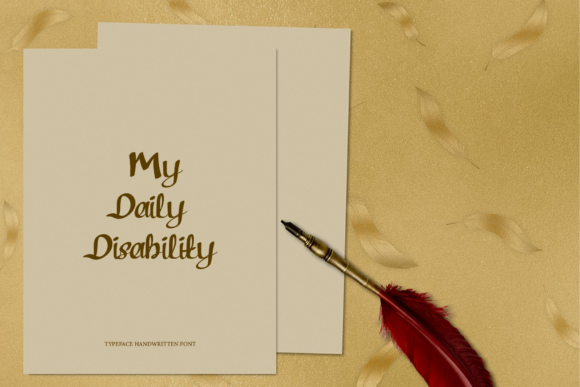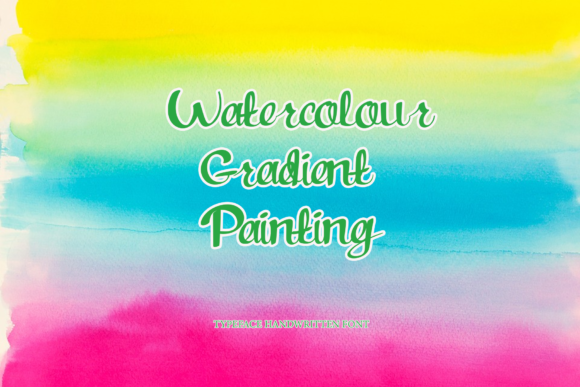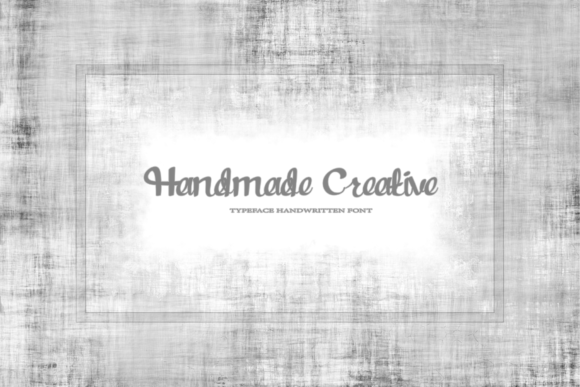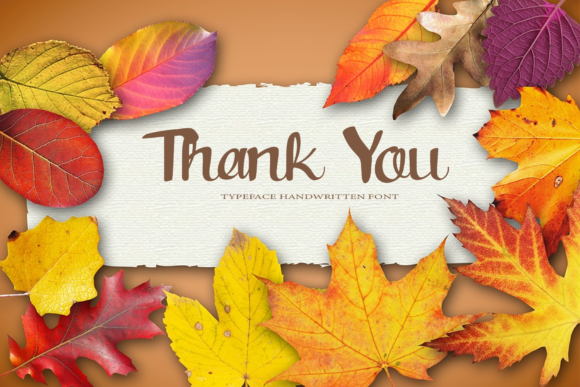
Introducing the Handmade Holiday Font: A Beautiful and Elegant Handwritten Delight
The holiday season is upon us, and with it comes the need for beautiful and festive designs that capture the spirit of the season. For designers and crafters looking for the perfect font to add a touch of elegance and sophistication to their projects, look no further than the Handmade Holiday font. This stunning handwritten font is sure to become your go-to choice for a wide variety of designs, from holiday cards and invitations to packaging and branding.
A Neat and Simple Style that’s Versatile and Elegant
Handmade Holiday is a beautiful and elegant handwritten font that’s characterized by its neat and simple style. Unlike other handwritten fonts that can be messy and difficult to read, Handmade Holiday is crisp and clean, making it perfect for use in a wide range of designs. Whether you’re creating a holiday card, a festive invitation, or a product label, this font is sure to add a touch of sophistication and elegance to your project.
Why Handmade Holiday is a Must-Have Font for Designers and Crafters
So why should designers and crafters choose Handmade Holiday over other fonts? Here are just a few reasons why this font is a must-have:
- Versatility: Handmade Holiday is a versatile font that can be used in a wide range of designs, from holiday cards and invitations to packaging and branding. Its neat and simple style makes it perfect for use in both digital and print designs.
- Elegance: Handmade Holiday is an elegant font that’s sure to add a touch of sophistication to any design. Its beautiful handwritten style is perfect for creating festive and eye-catching designs that will stand out from the crowd.
- Readability: Unlike other handwritten fonts that can be difficult to read, Handmade Holiday is crisp and clean, making it easy to read and understand. This makes it perfect for use in designs where you need to communicate a message clearly and effectively.
How to Use Handmade Holiday in Your Designs
Using Handmade Holiday in your designs is easy. Here are a few tips to get you started:
- Pair it with other fonts: Handmade Holiday looks great when paired with other fonts. Try pairing it with a bold sans-serif font for a festive and eye-catching design.
- Use it for headings and titles: Handmade Holiday is perfect for use in headings and titles. Its elegant handwritten style makes it perfect for adding a touch of sophistication to your design.
- Experiment with colors: Handmade Holiday looks great in a variety of colors. Try experimenting with different colors and textures to add depth and interest to your design.
Perfect for a Wide Range of Designs
Handmade Holiday is perfect for a wide range of designs, including:
- Holiday cards and invitations: Add a touch of elegance and sophistication to your holiday cards and invitations with Handmade Holiday.
- Packaging and branding: Use Handmade Holiday to add a touch of festivity and elegance to your packaging and branding.
- Social media graphics: Handmade Holiday is perfect for use in social media graphics, such as holiday-themed Facebook posts and Instagram stories.
In conclusion, Handmade Holiday is a beautiful and elegant handwritten font that’s perfect for designers and crafters looking for a versatile and sophisticated font for their holiday designs. Its neat and simple style makes it perfect for use in a wide range of designs, from holiday cards and invitations to packaging and branding. With its elegance, readability, and versatility, Handmade Holiday is sure to become your go-to font for all your holiday design needs.